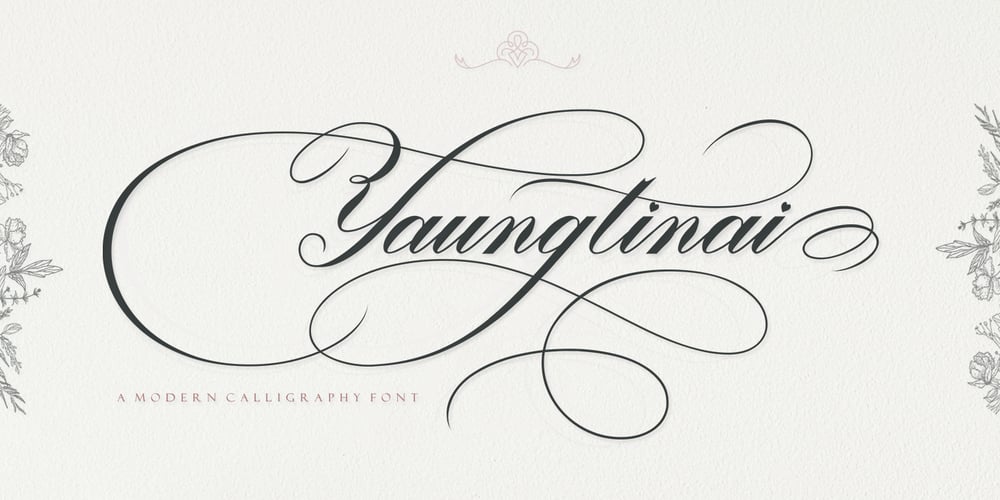
Yaungtinai Font Family was designed by Ikhsan Maulana and published by IM Studio. Yaungtinai contains 1 styles and family package options. Yaungtinai is actually a unique font, I made it with the relaxed spontaneity of my hands. designing formal fonts but with a classic elements, which makes it very suitable for wedding media, book covers, greeting cards, logos, branding, business cards and certificates, even for any design work that requires a classic, formal or fancy appearance.Try Yaungtinai, enjoy the wealth of OpenType features and let the powerful yet elegant excitement delight you and increase your creativity! You can use this font very easily.There are many features in it. Yaungtinai contains the full set of lowercase and uppercase letters, punctuation, numbers, and multilingual support. This font also includes several alternative Ligature and Stylistic Set styles for those of you who have software that can work with OpenType (Corel Draw / Photoshop / Illustrator / InDesign).If you don’t have a program that supports OpenType features like Adobe Illustrator and CorelDraw X Version, you can access all alternative glyphs using Font Book (Mac) or Character Map (Windows). Don’t forget to see, buy, like, and share with friends.